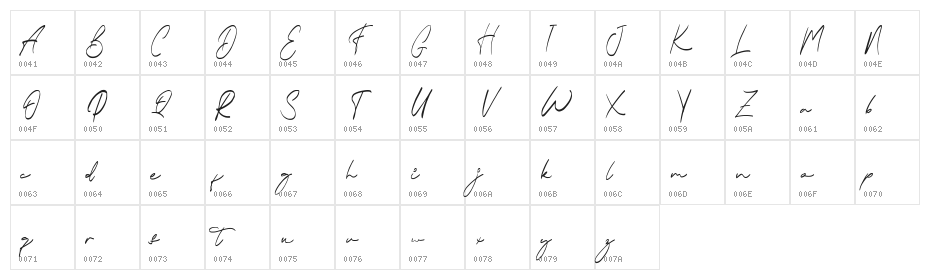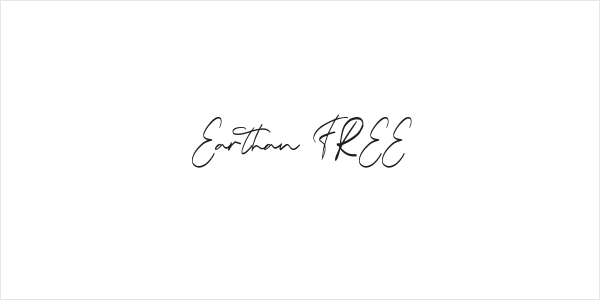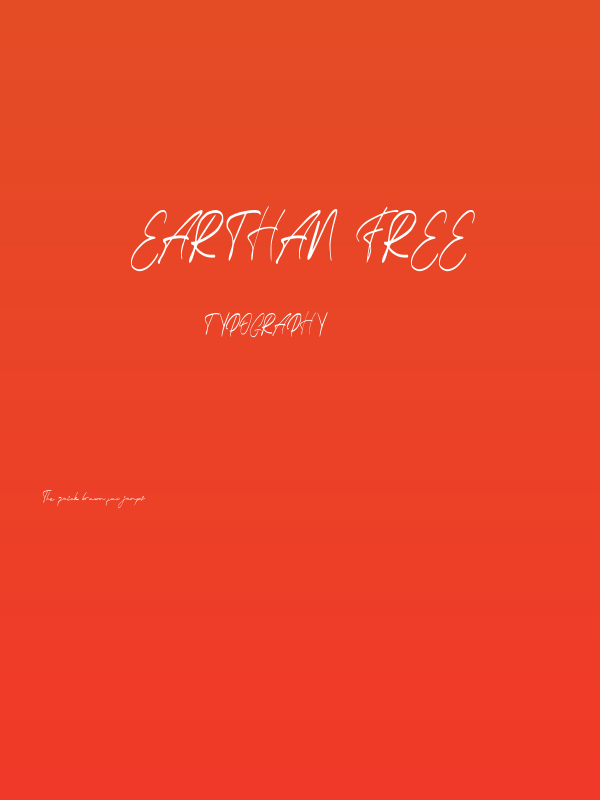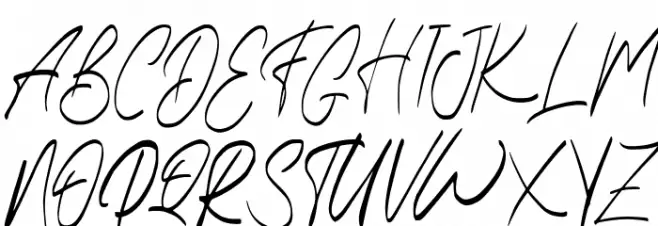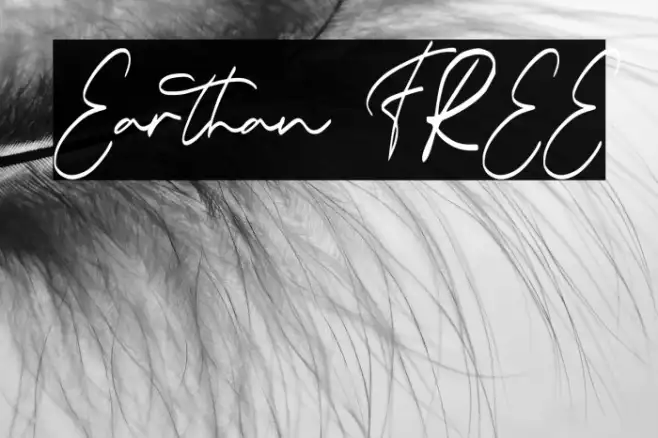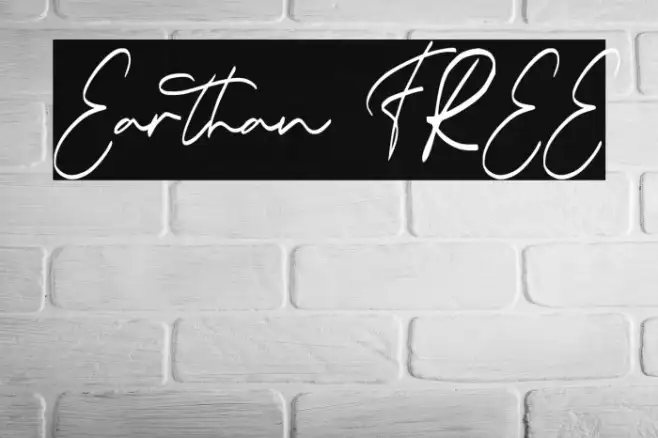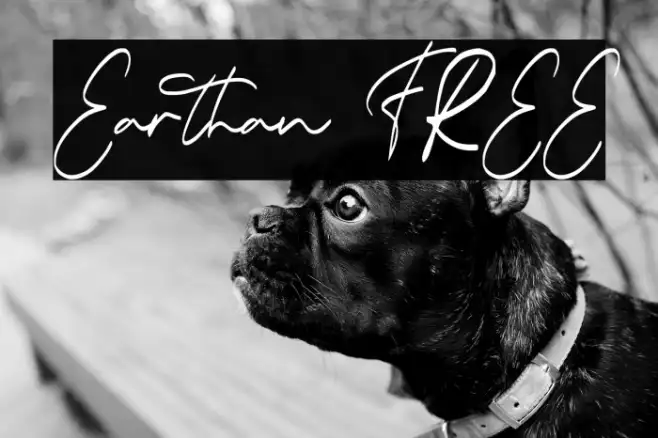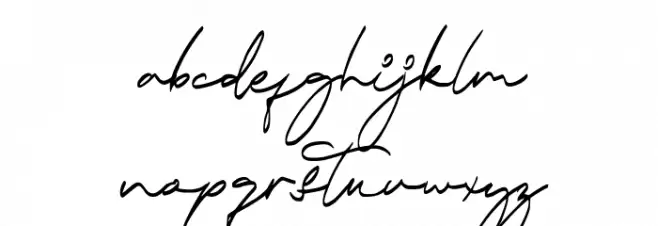
Earthan FREE Font
Earthan FREE Description
This font features a dynamic and fluid script style, characterized by its elegant, flowing lines and a sense of movement. The uppercase letters are bold and slightly slanted, giving a sense of urgency and flair. The lowercase letters maintain a consistent style, with delicate loops and curves that enhance its handwritten appearance. The numerals and special characters are crafted with the same attention to detail, ensuring a cohesive look across all glyphs. This font exudes a modern yet timeless appeal, making it versatile for various design applications.
| Proposed Projects | Ideal for wedding invitations, branding projects, logo design, and elegant stationery. |